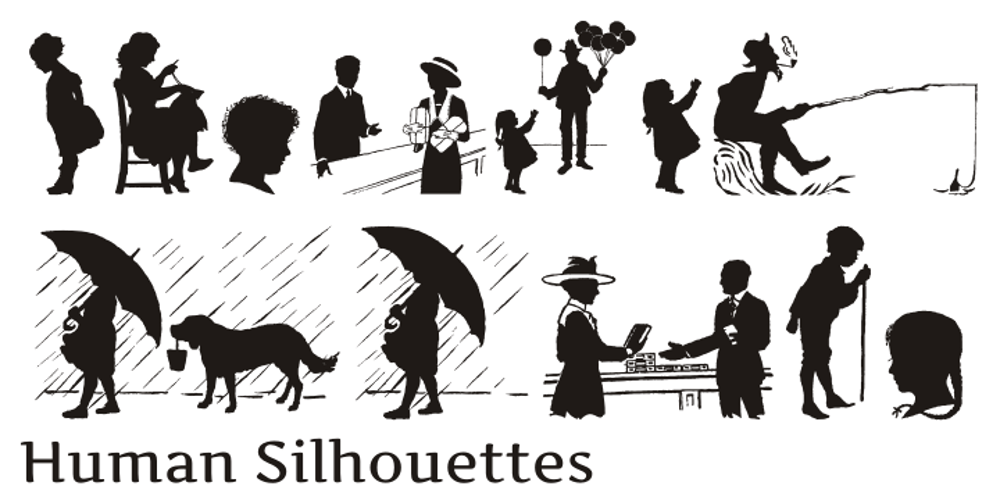
Human Silhouettes Font Family was designed by Paulo W and published by Intellecta Design. Human Silhouettes contains 4 styles and family package options. Human Silhouettes are inspired by people and daily situations. It includes a wide variety of topics and may be used individually or in combination with wide range of design possibilities.